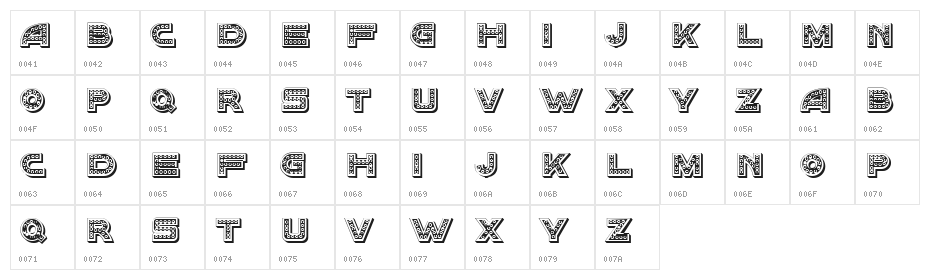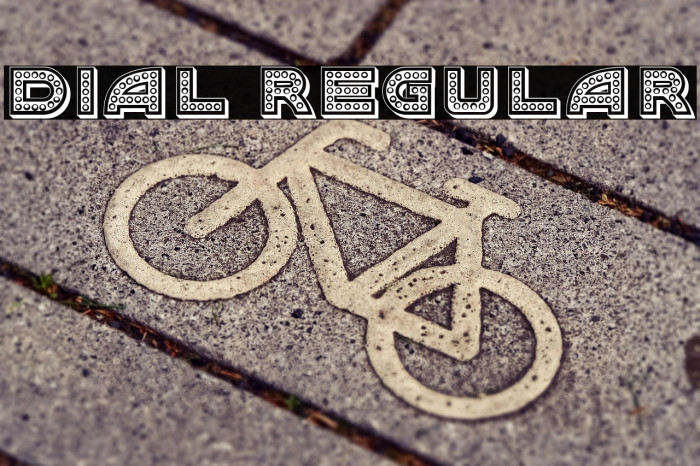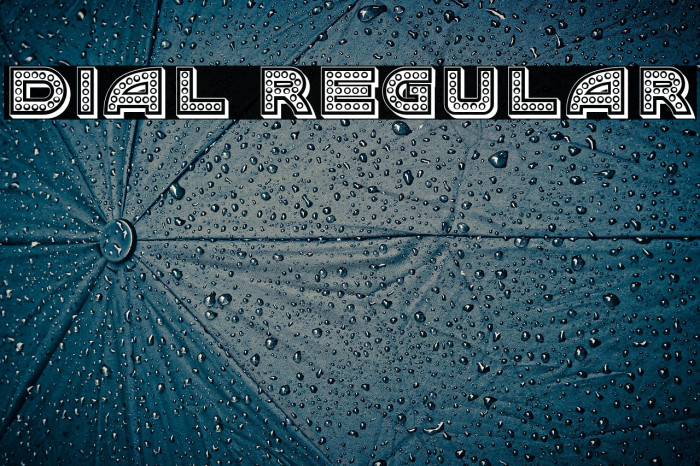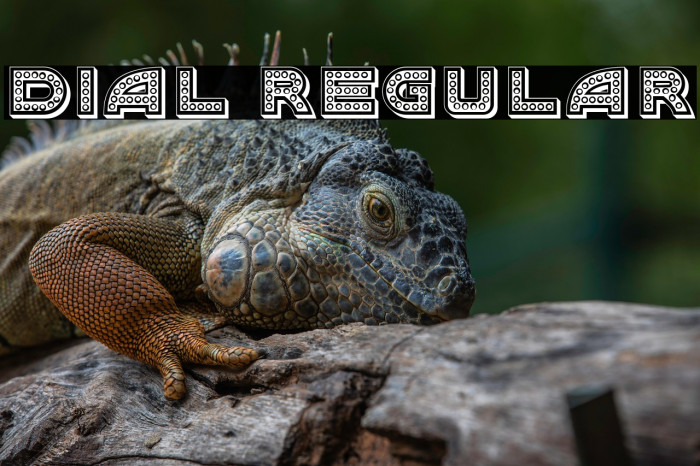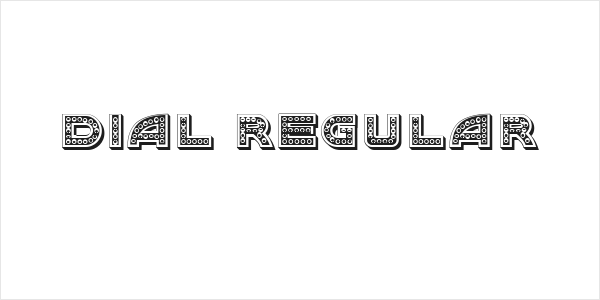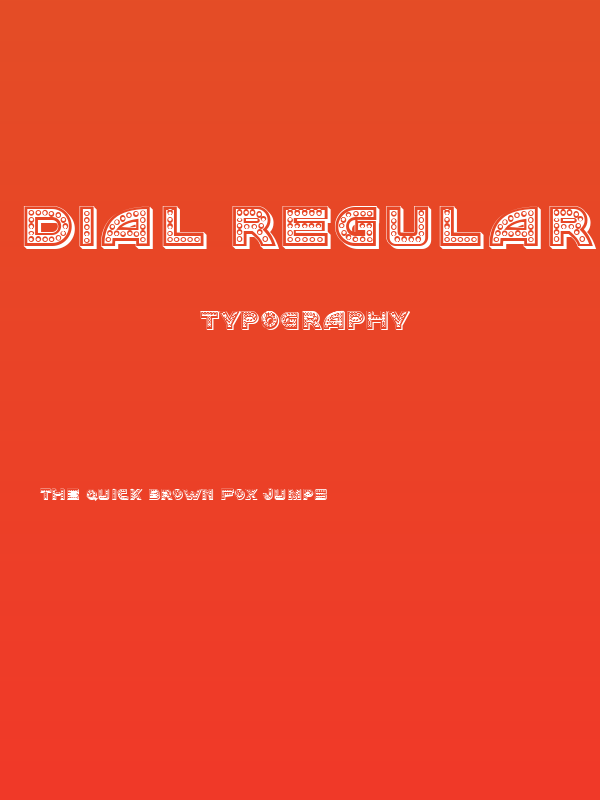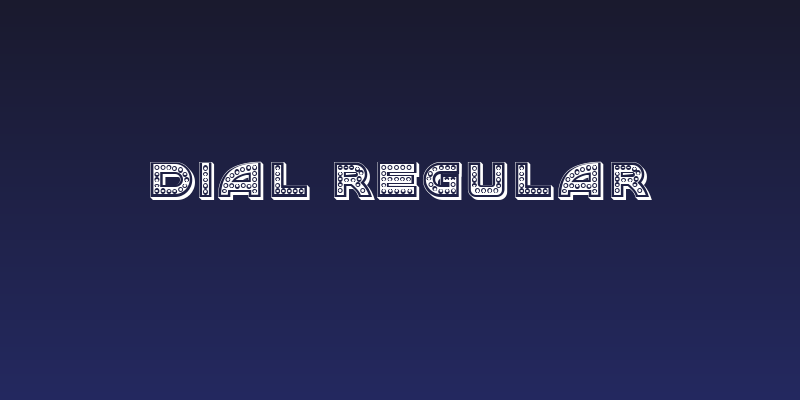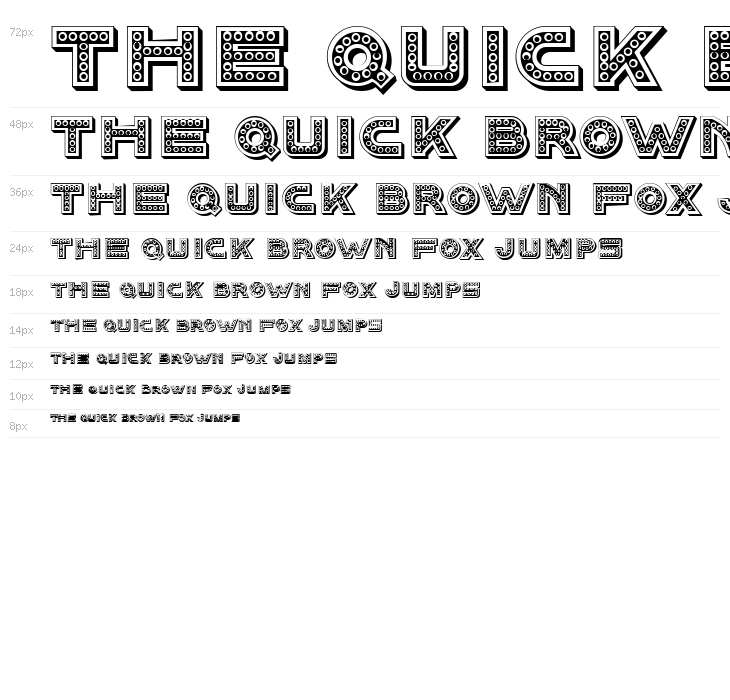
Dial Regular Font
Dial Regular Description
This font features a bold, decorative style with intricate patterns inside each letterform. The uppercase letters are designed with a unique, eye-catching aesthetic that combines both solid and dotted elements, creating a sense of depth and texture. The overall appearance is reminiscent of vintage marquee lights or circus posters, making it ideal for designs that require a playful yet bold statement. The characters are evenly spaced, ensuring readability while maintaining their decorative appeal. This font is perfect for projects that aim to capture attention and convey a sense of fun and excitement.